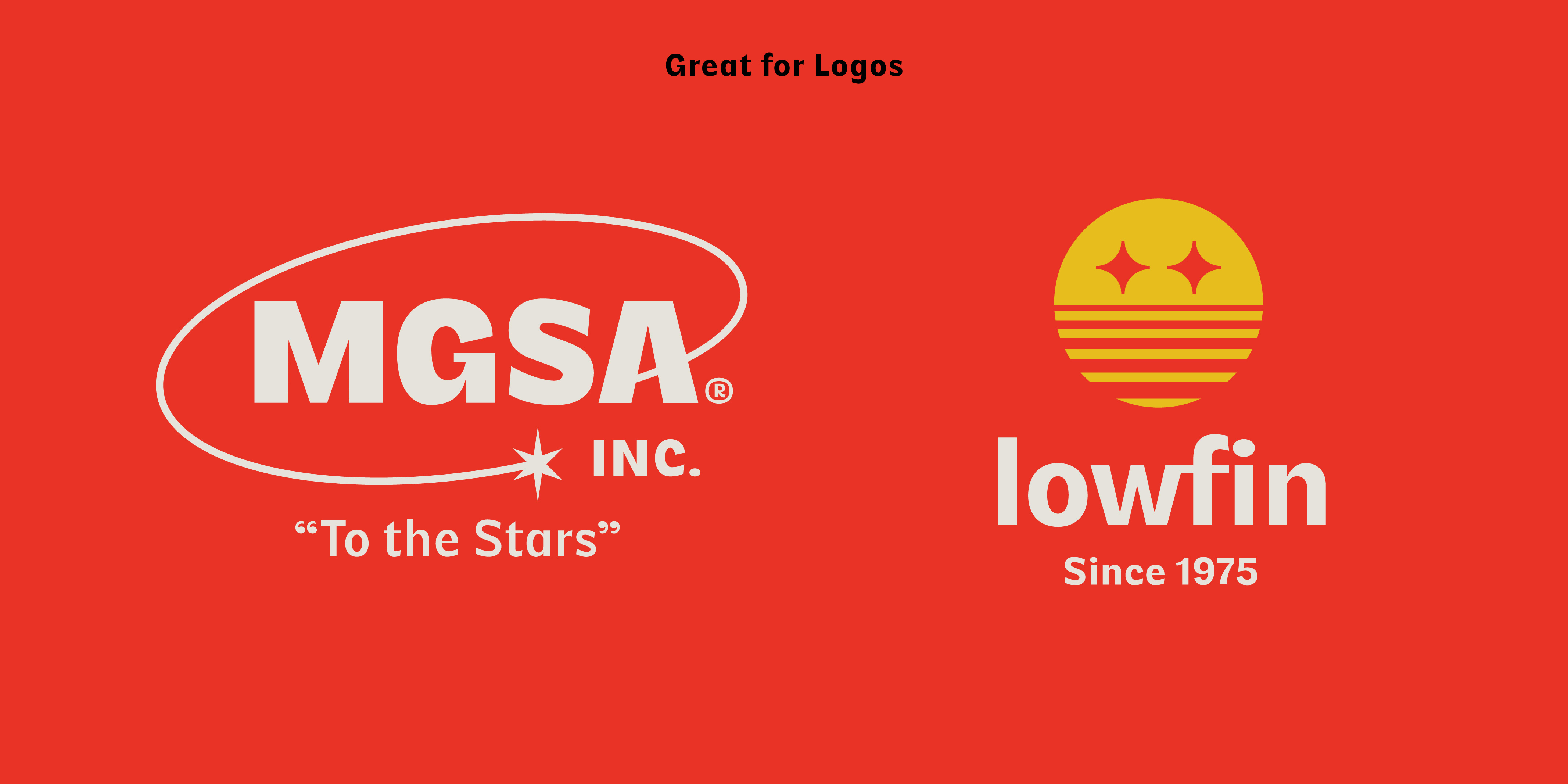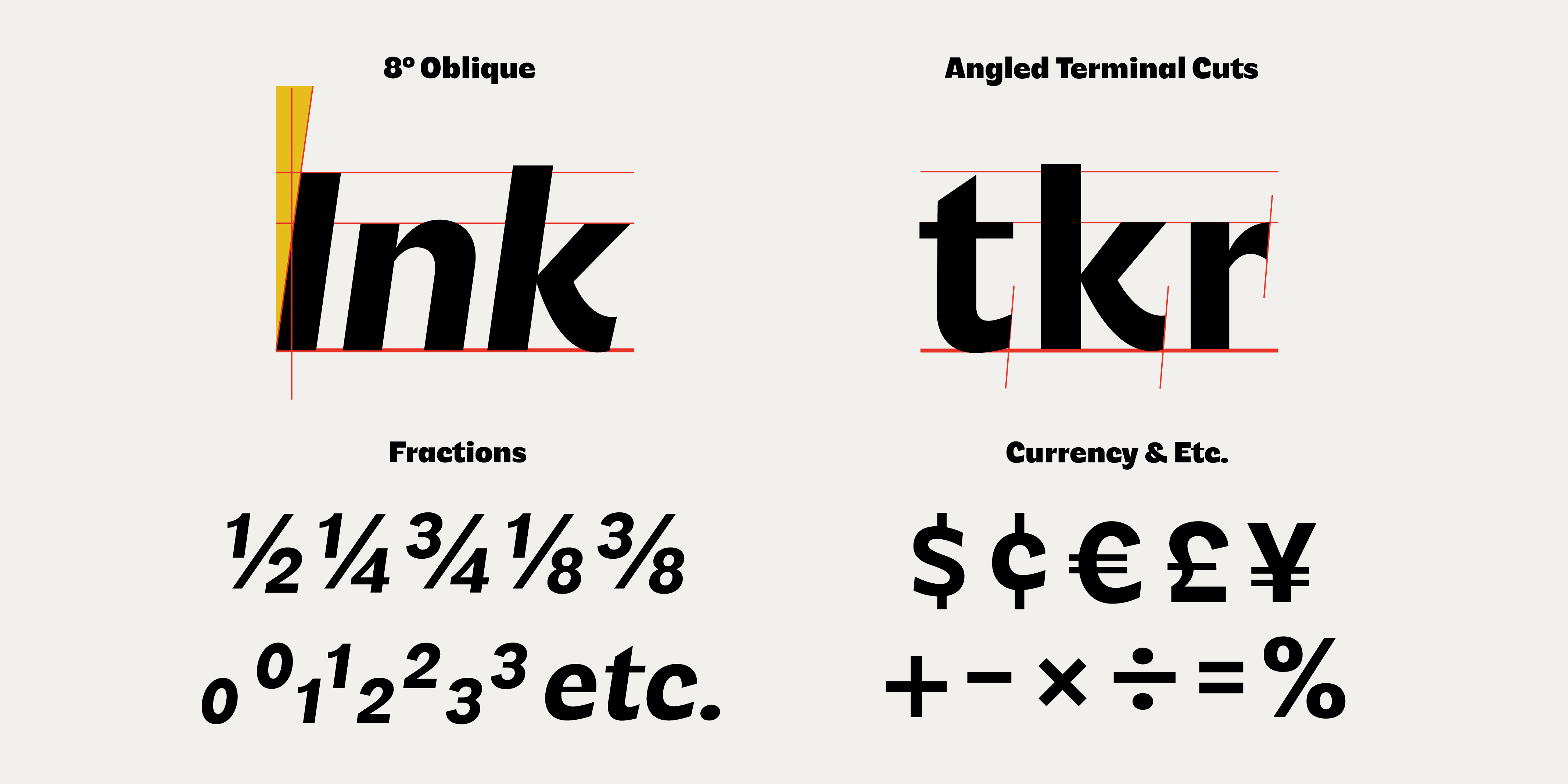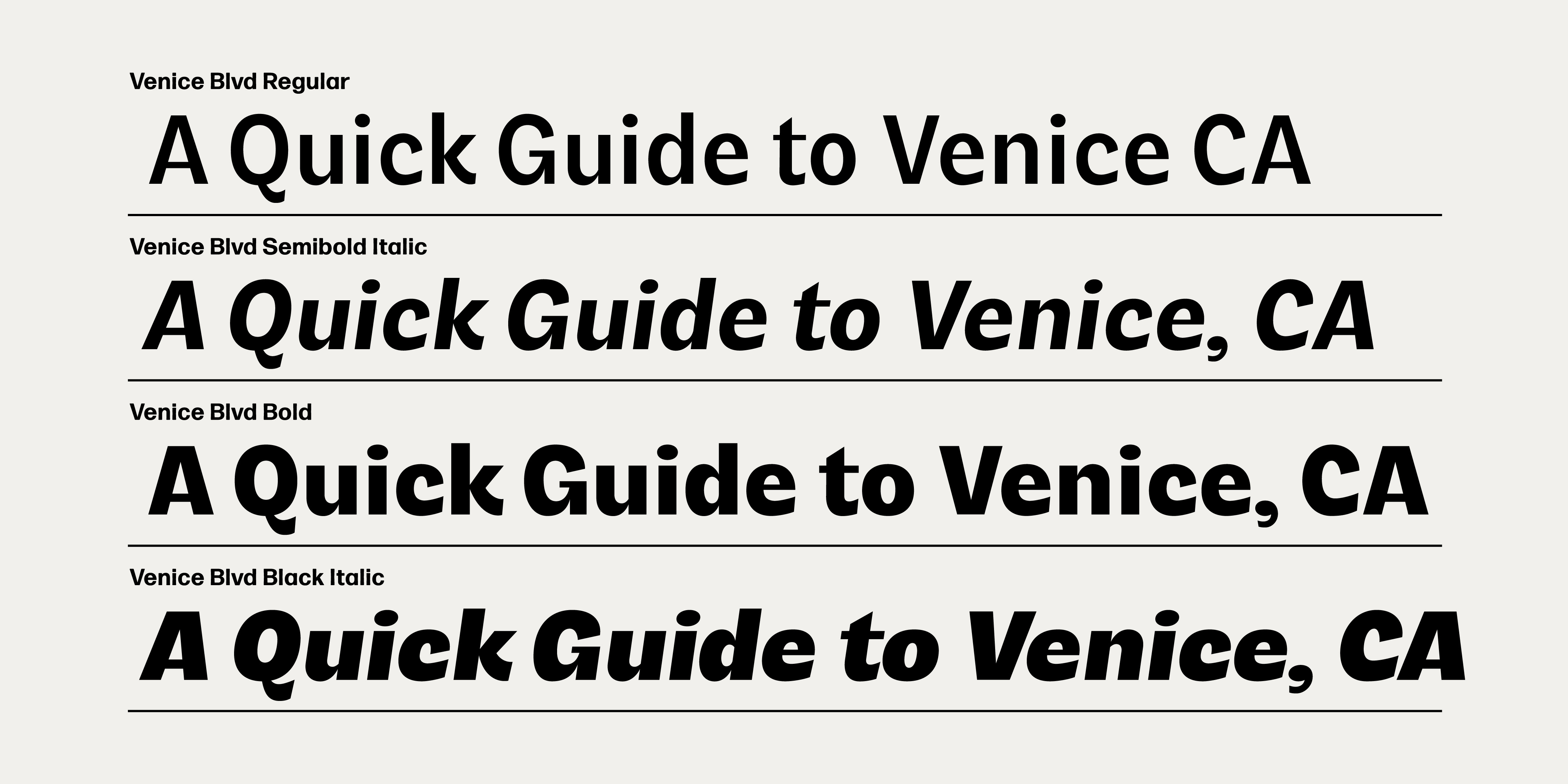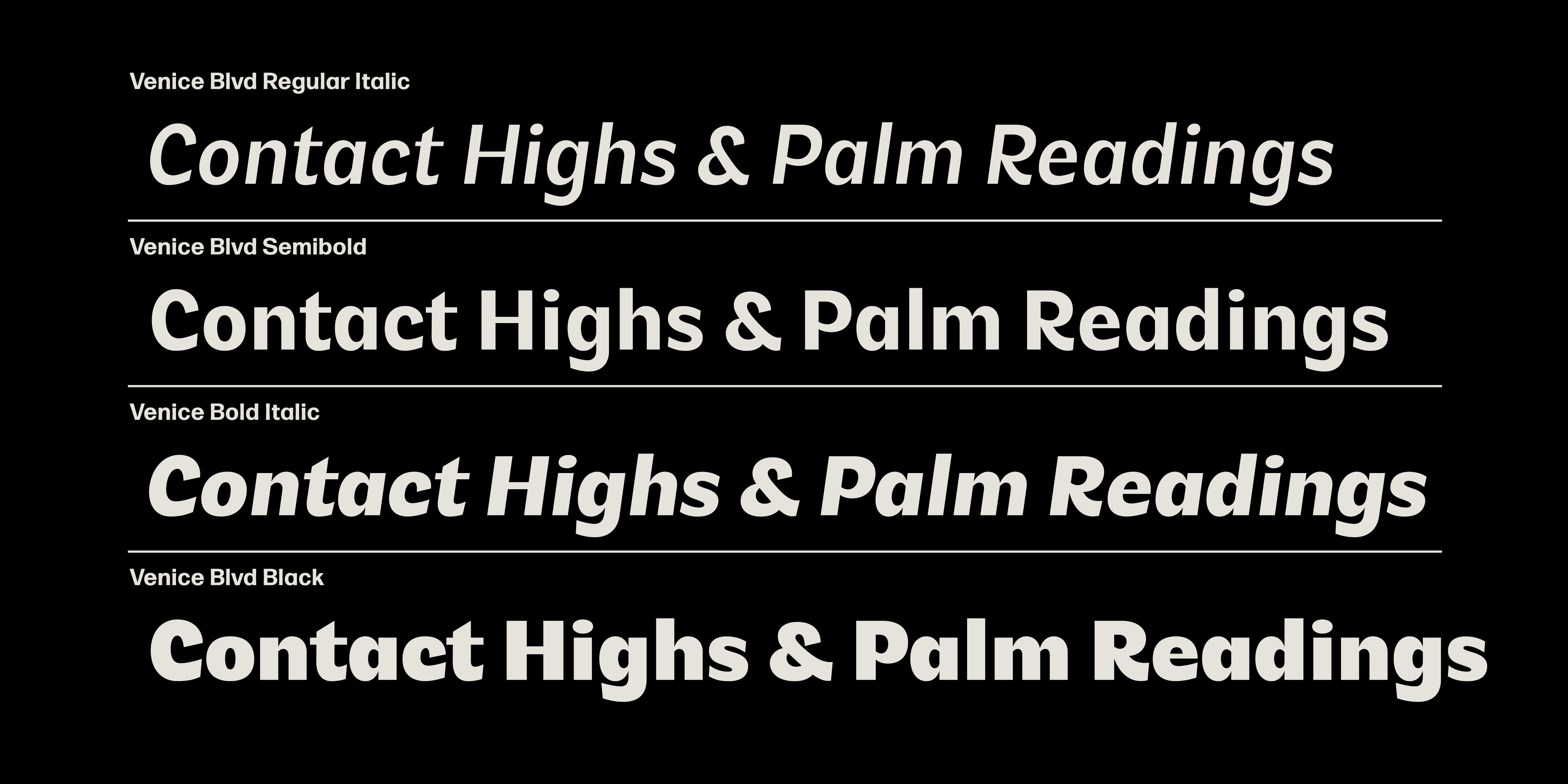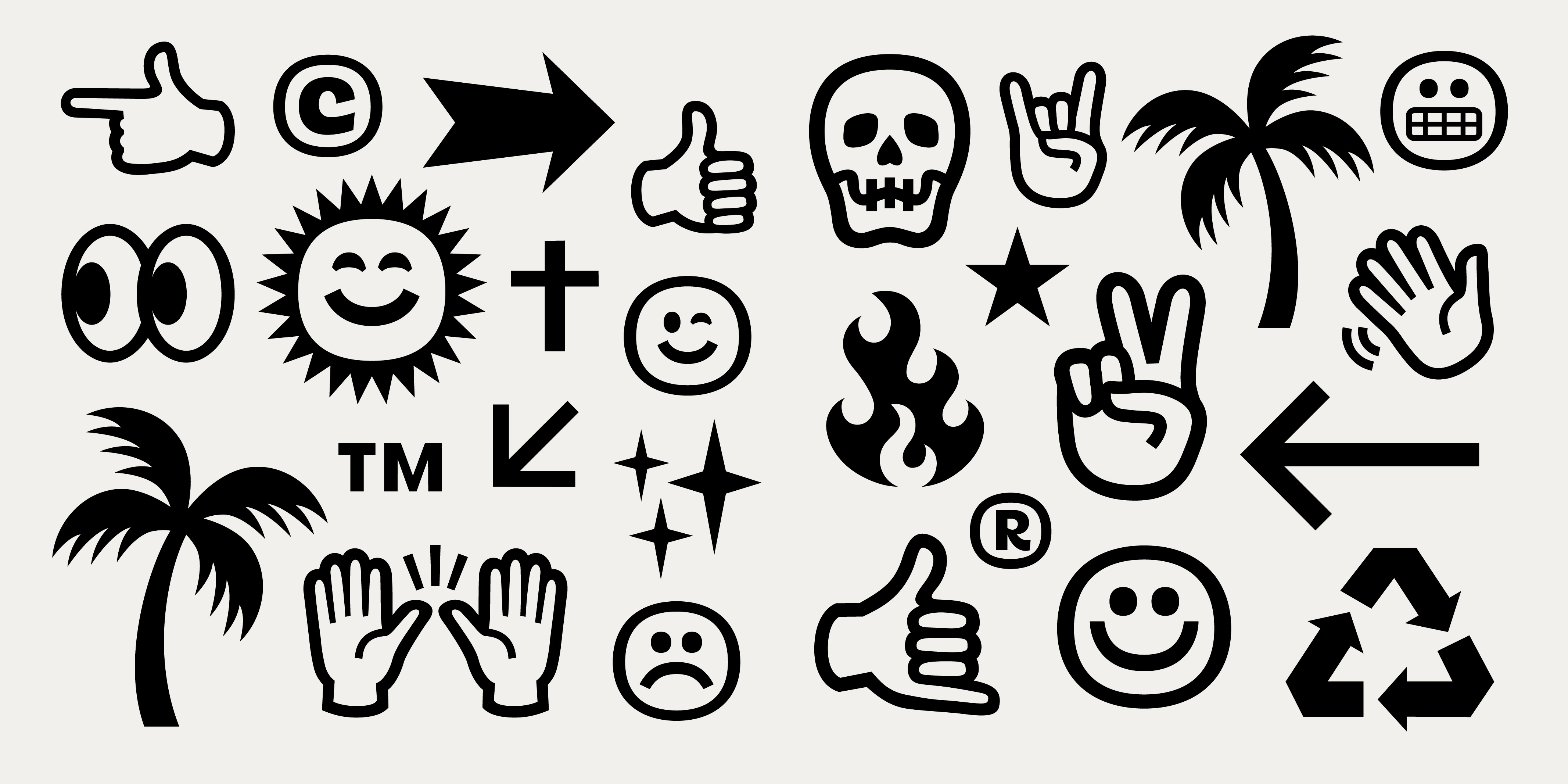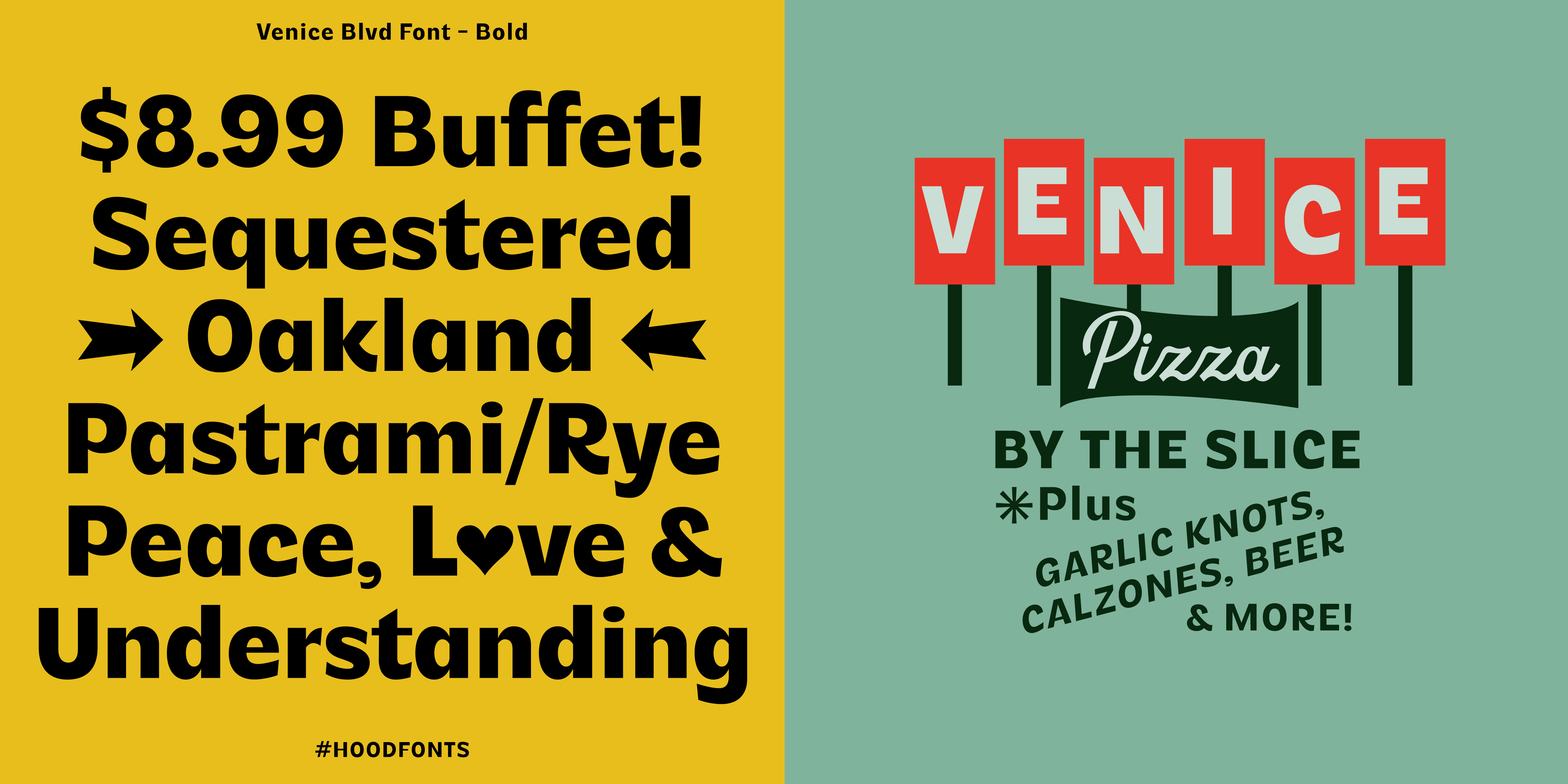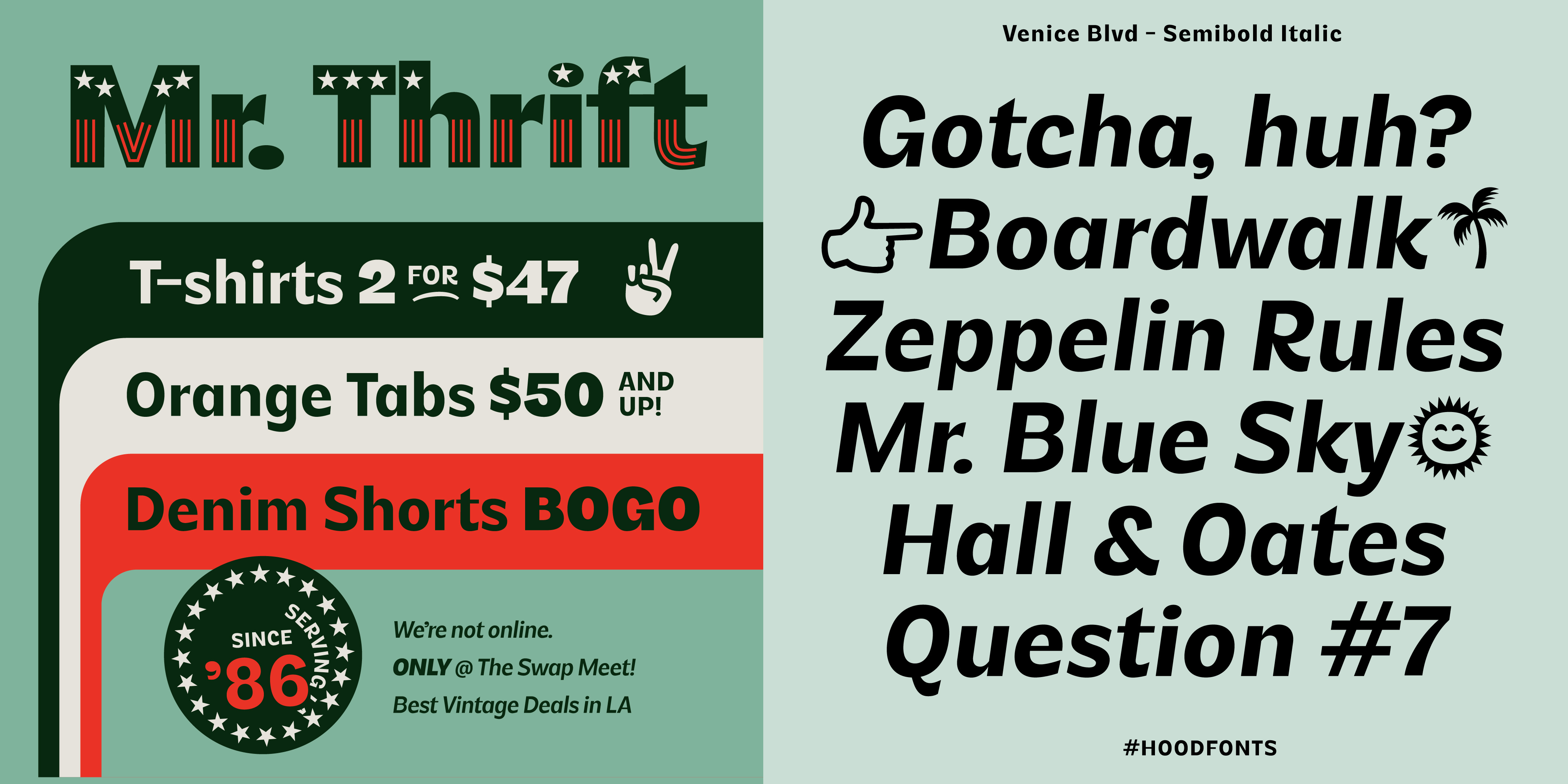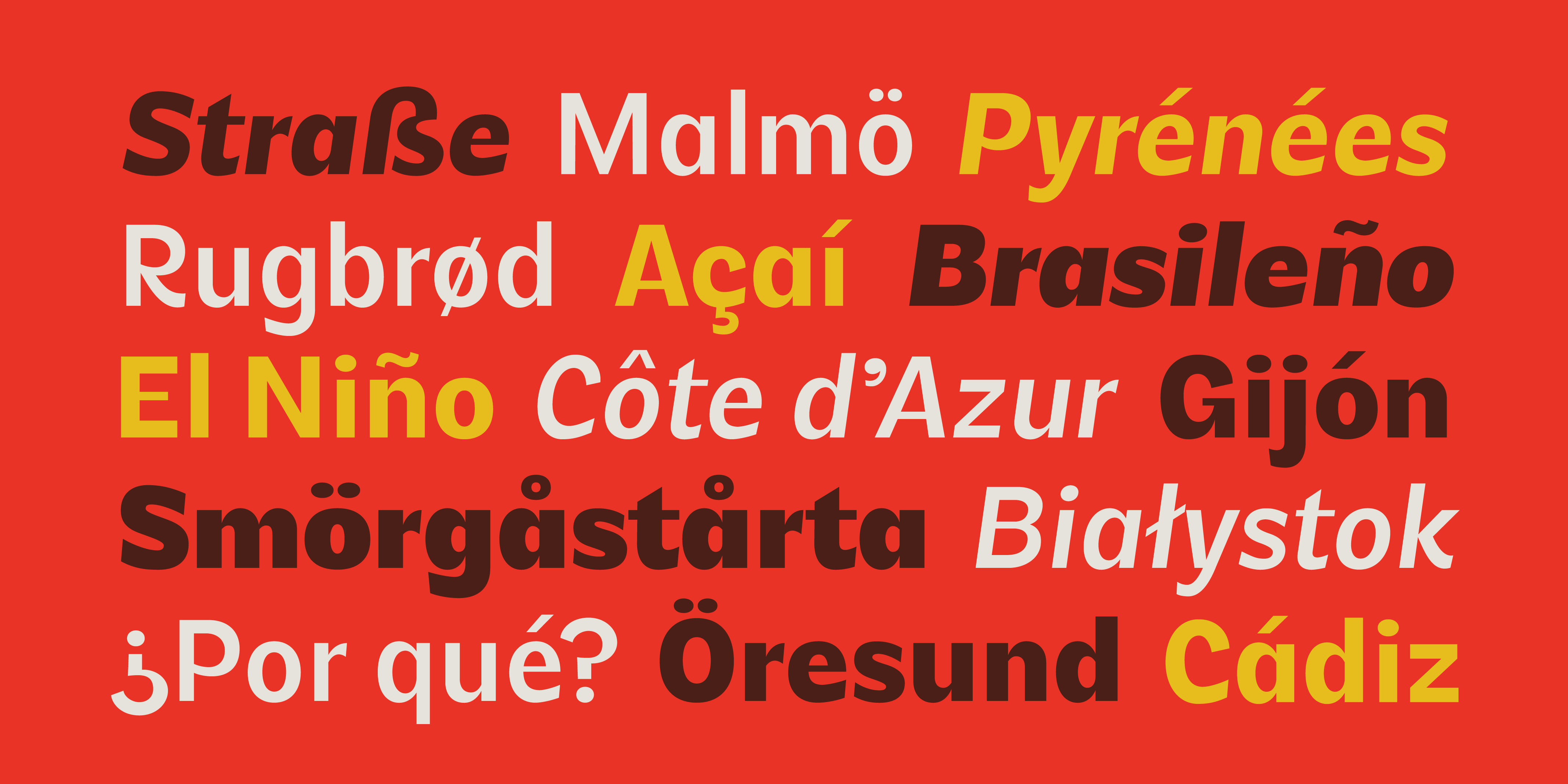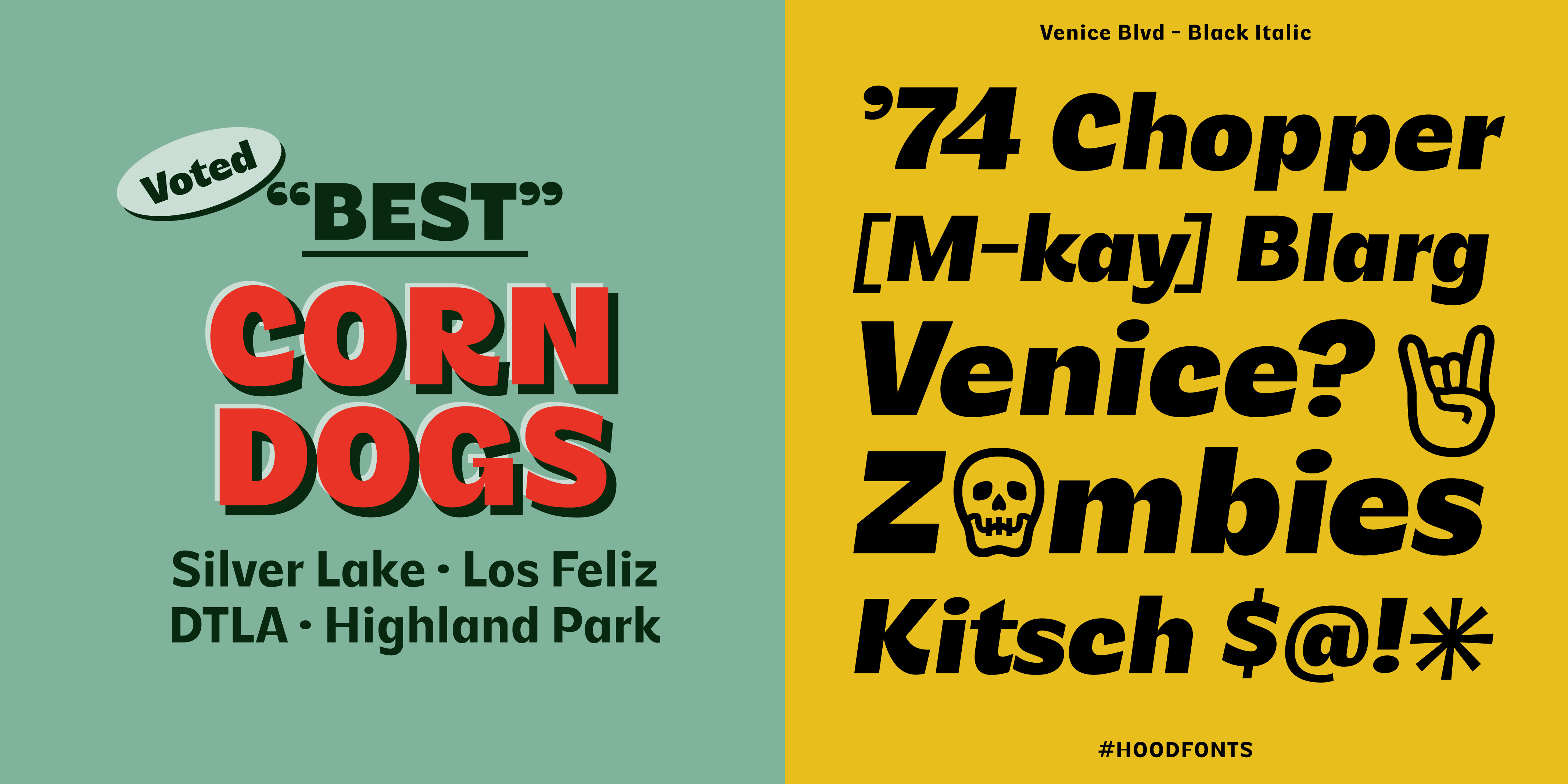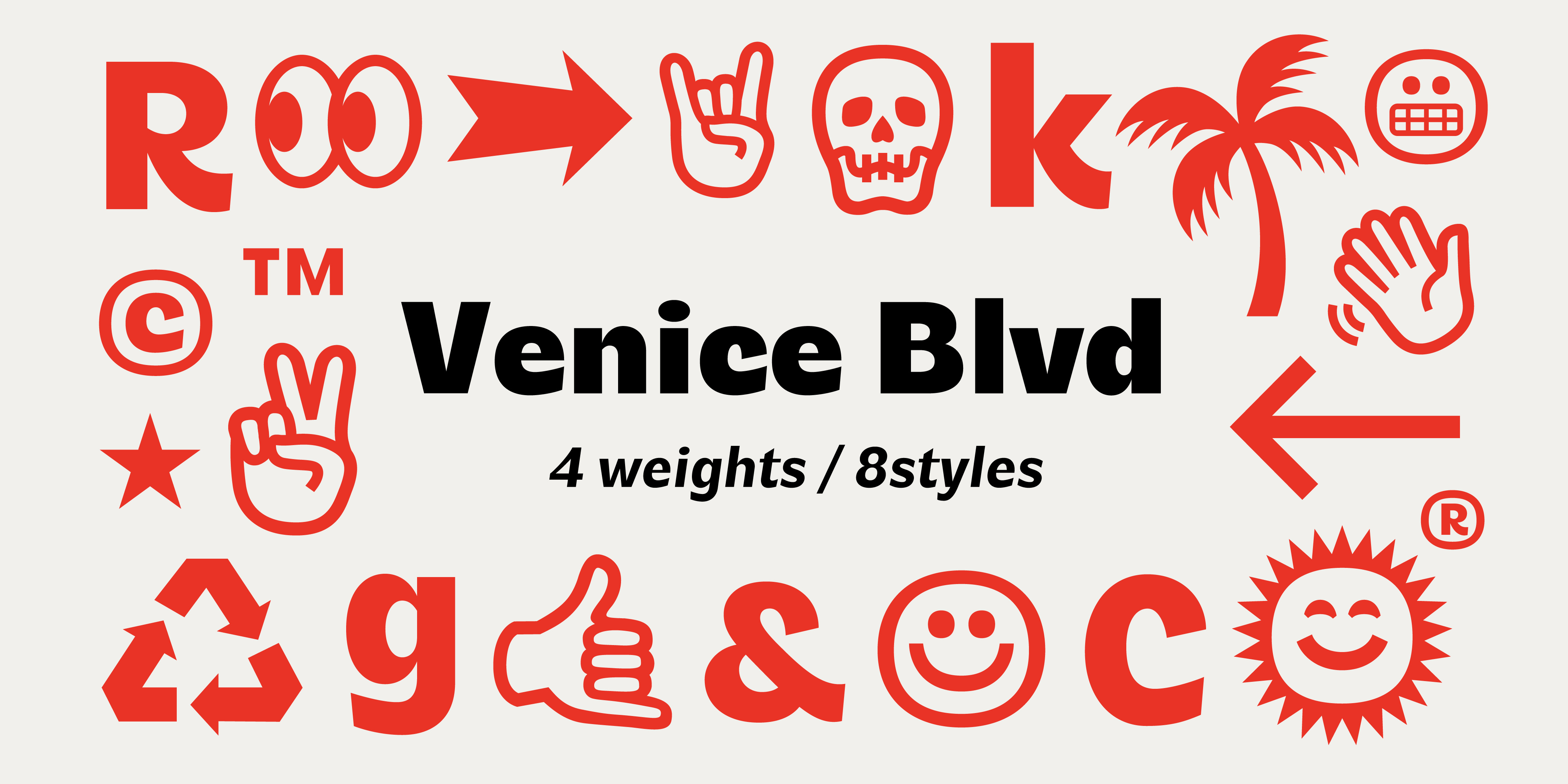
Venice Blvd
Venice Blvd. is a hefty display typeface for those instances when you need a bit of bounce and some “je ne sais what now?”. This display family is as eccentric as the drum circle at Venice Beach; as curvy as the Venice skate park bowls; as unpretentious as the souvenir stand selling pukka shell necklaces.
From the whimsical Regular weight all the way to the deep-fried-cronut that is the Black weight, there’s variety to suit most occasions (likely not funerals). 22+ Illustrative symbols also included to spice things up.